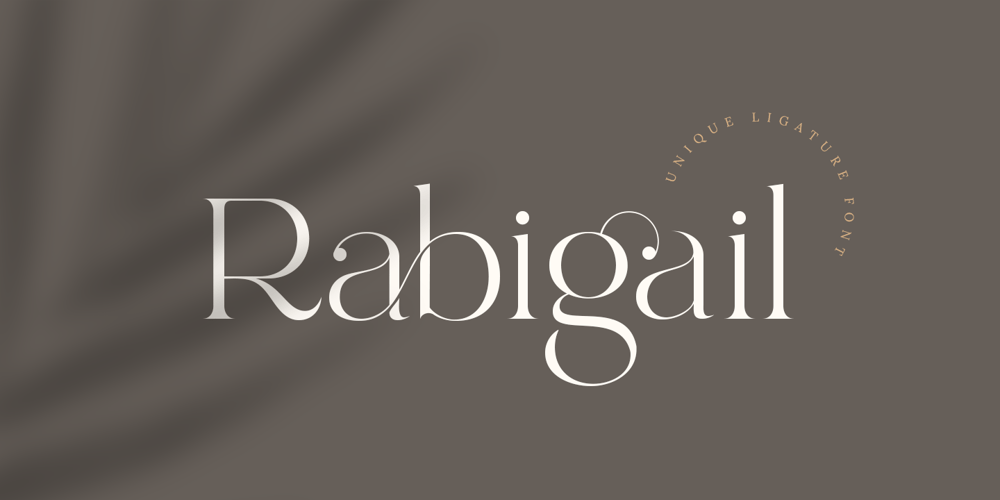
Rabigail Font Family was designed by Zamroni Hamzah and published by Sensatype Studio. Rabigail contains 1 styles and family package options. Rabigail is an unique and very elegant font for brand and logo design.Based on our experience as a graphic designer who works for a lot of companies, we often are requested to design a logo in a unique style but with an elegant shape. So, we try to brainstorming and create this font to make the idea is going out. This is perfect for BRANDING and LOGO DESIGN. You will get classy, elegant, and certainly unique logos with this font.To make it look more unique, here we prepared some ligatures:ab ah am an ar ak ap at oo cb ch ck cm cn cr ct eb eh ek em en ep er ub uh uk um un up ur st tb th tk tm tn tp tr tu ty fl fi ff ft oo cra ee ga gi itUPDATE v2 – New Additional Ligatures: ob oh om on op or Wish You enjoy it. :)Rabigail is also included full set of: uppercase and lowercase letters multilingual symbols numerals punctuation Wish you enjoy our font and if you have a question, don’t hesitate to drop message & I’m happy to help 🙂